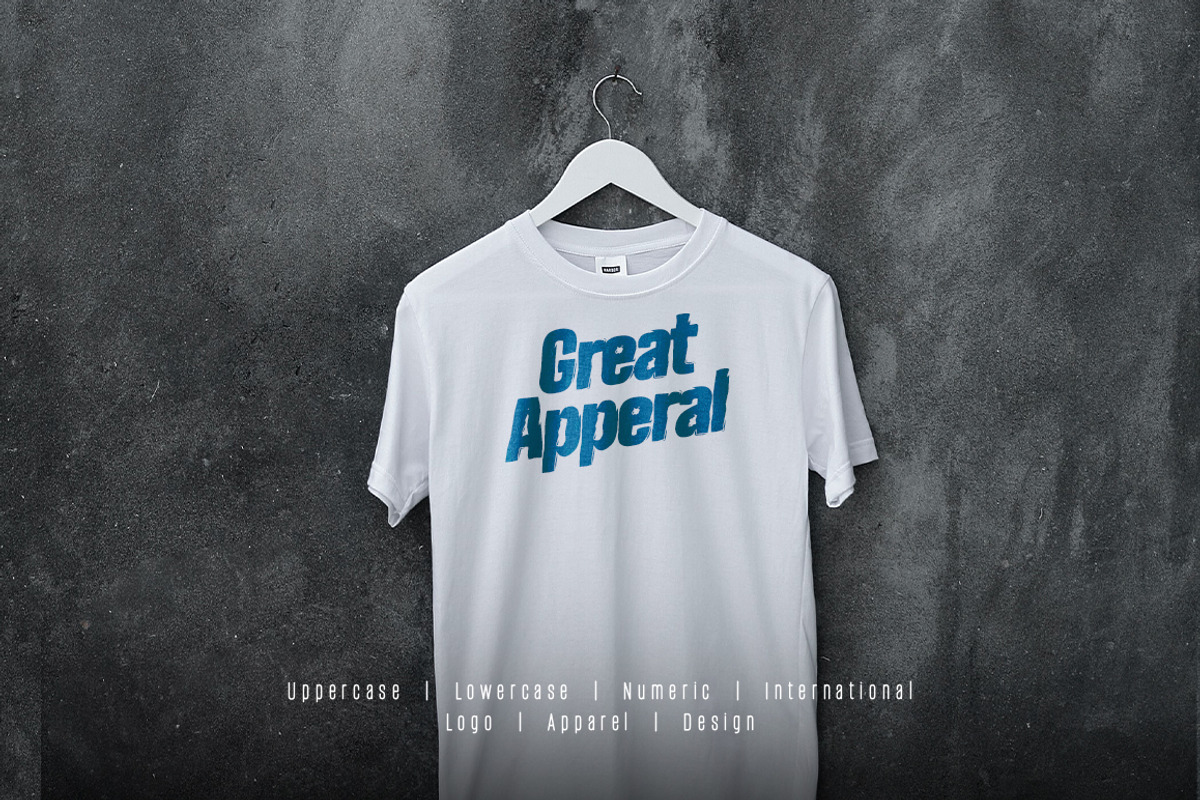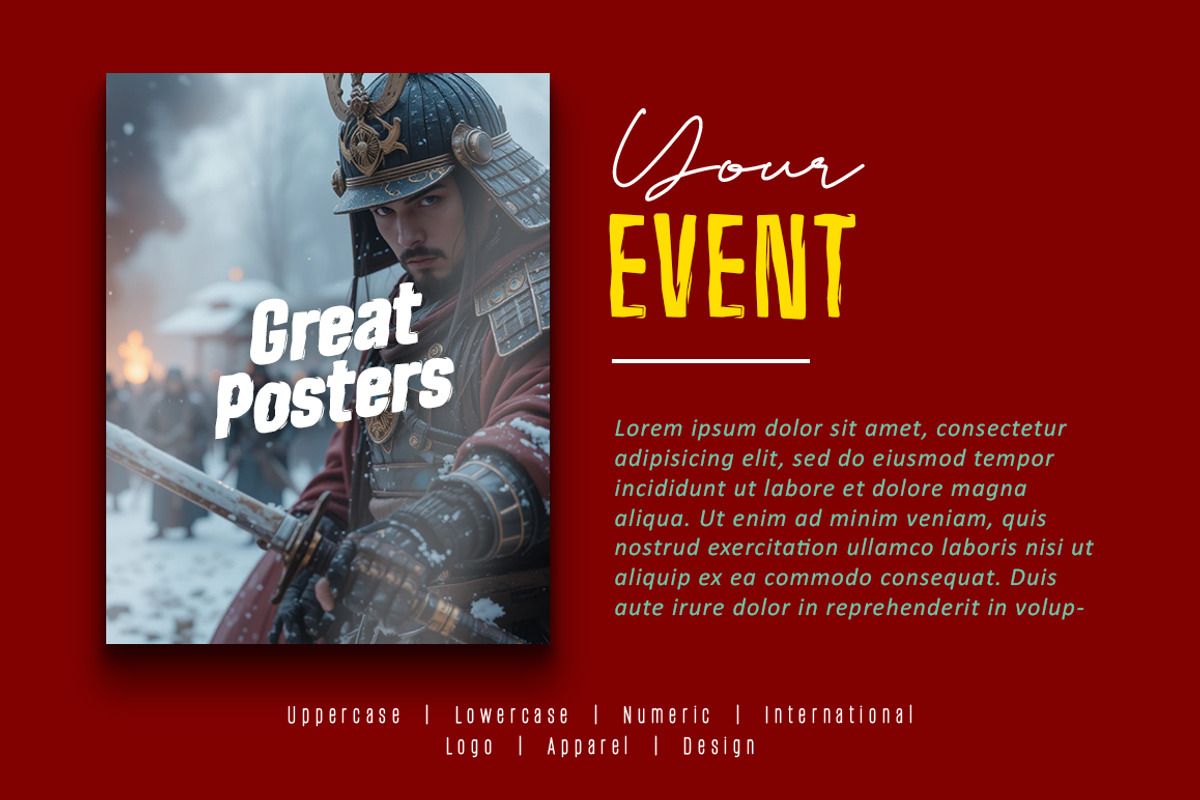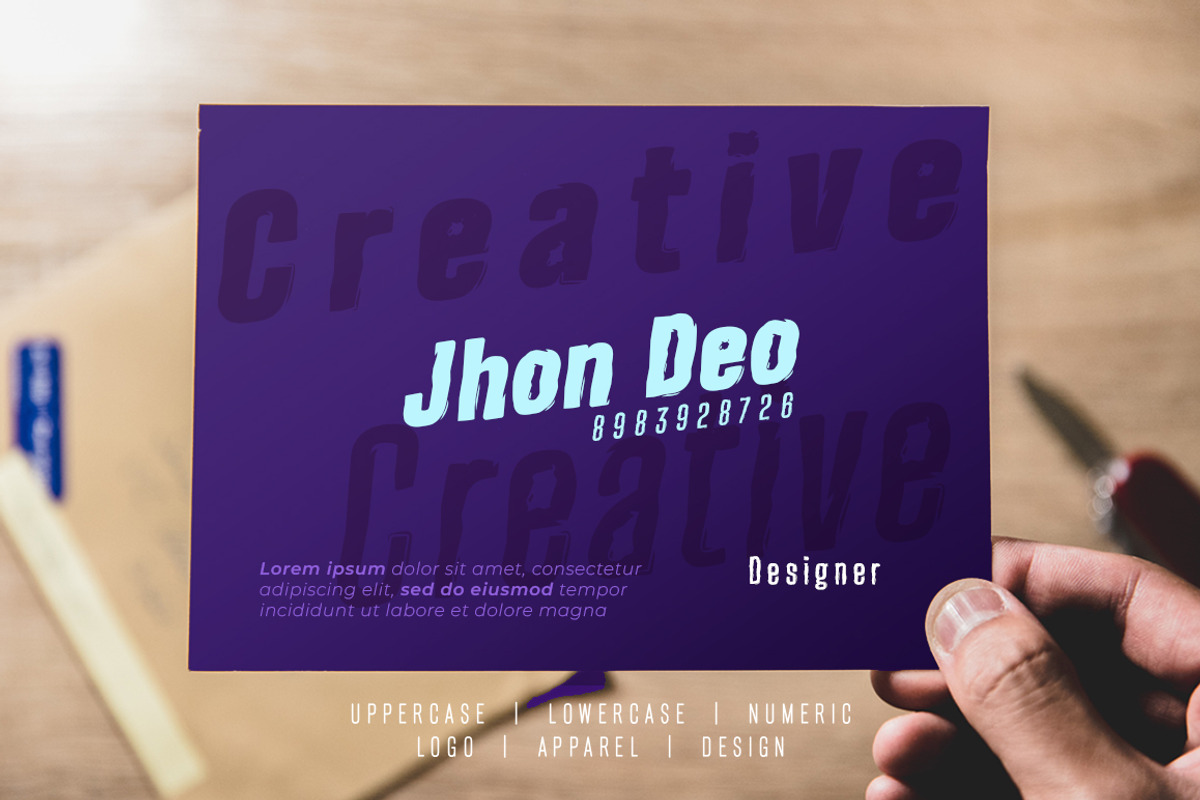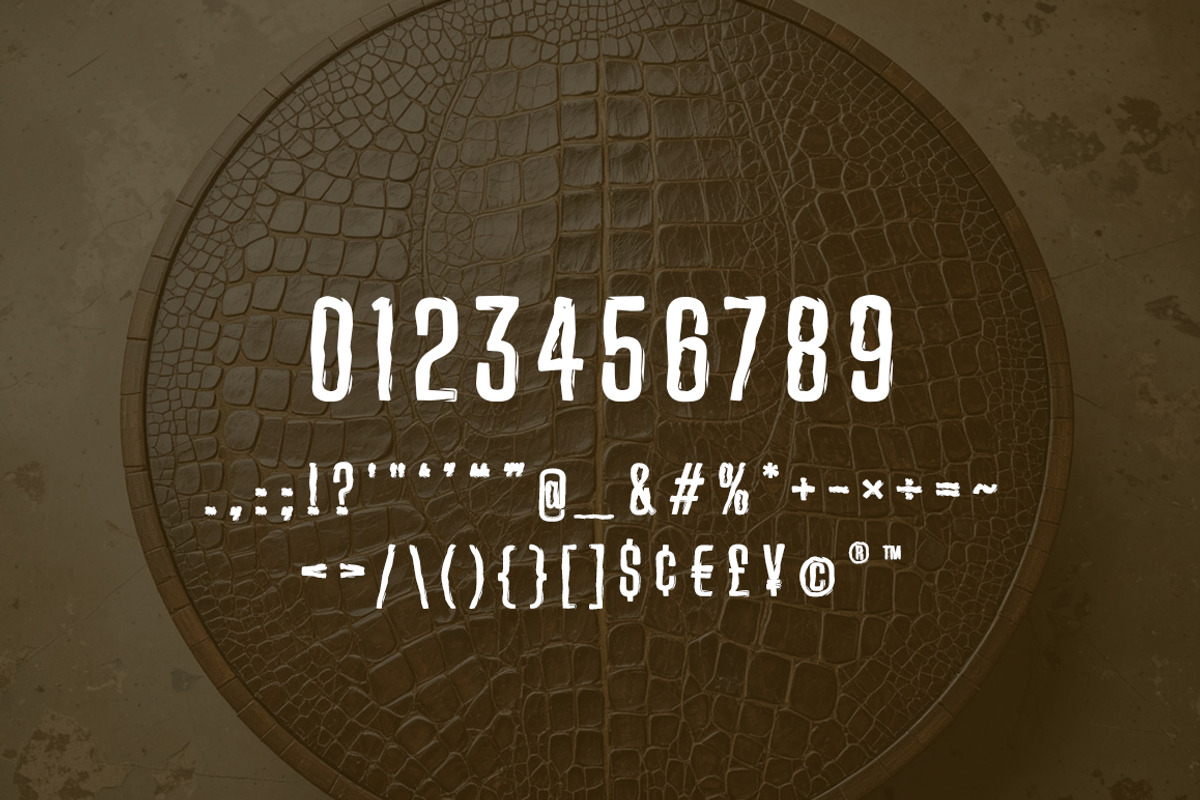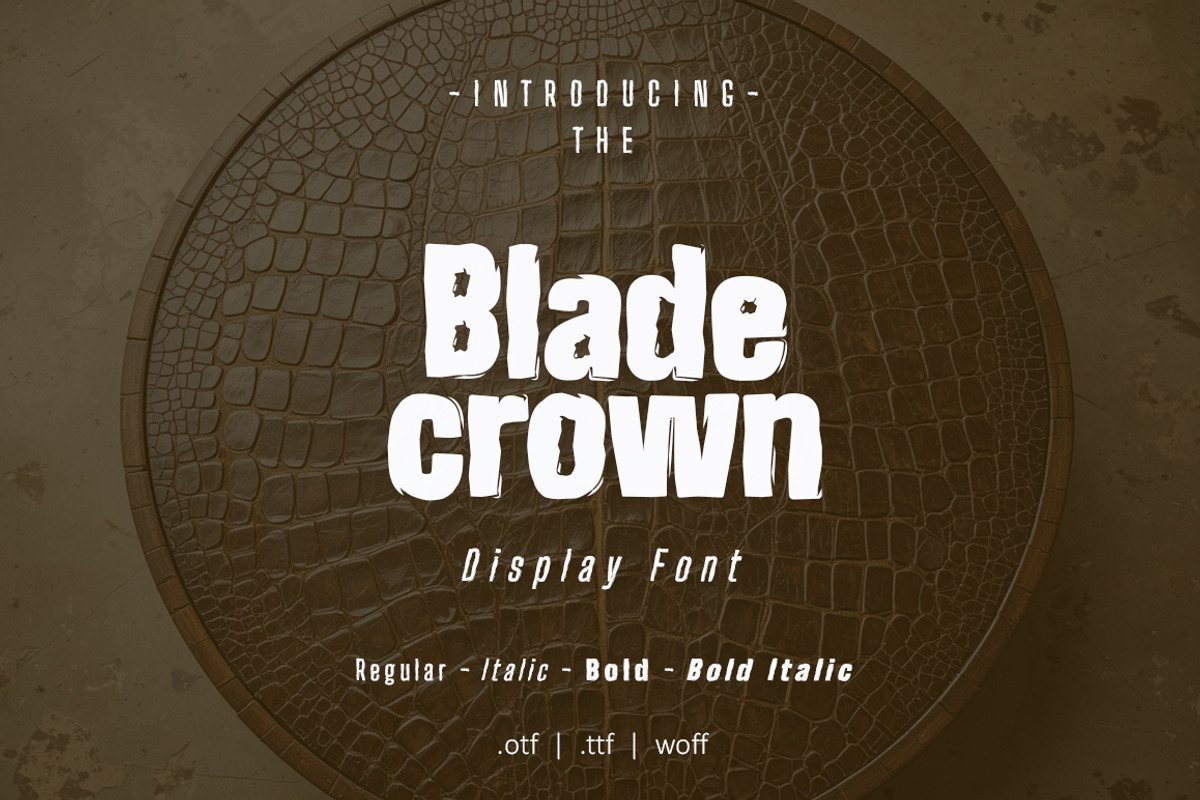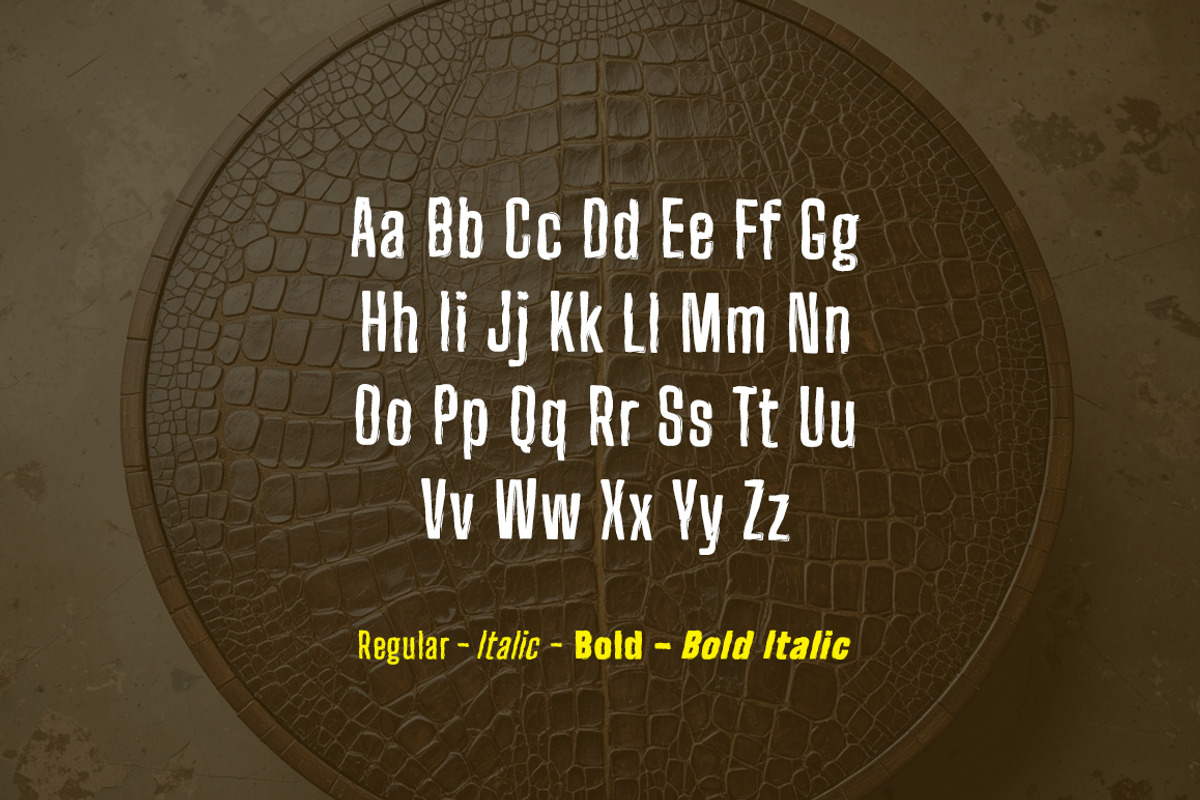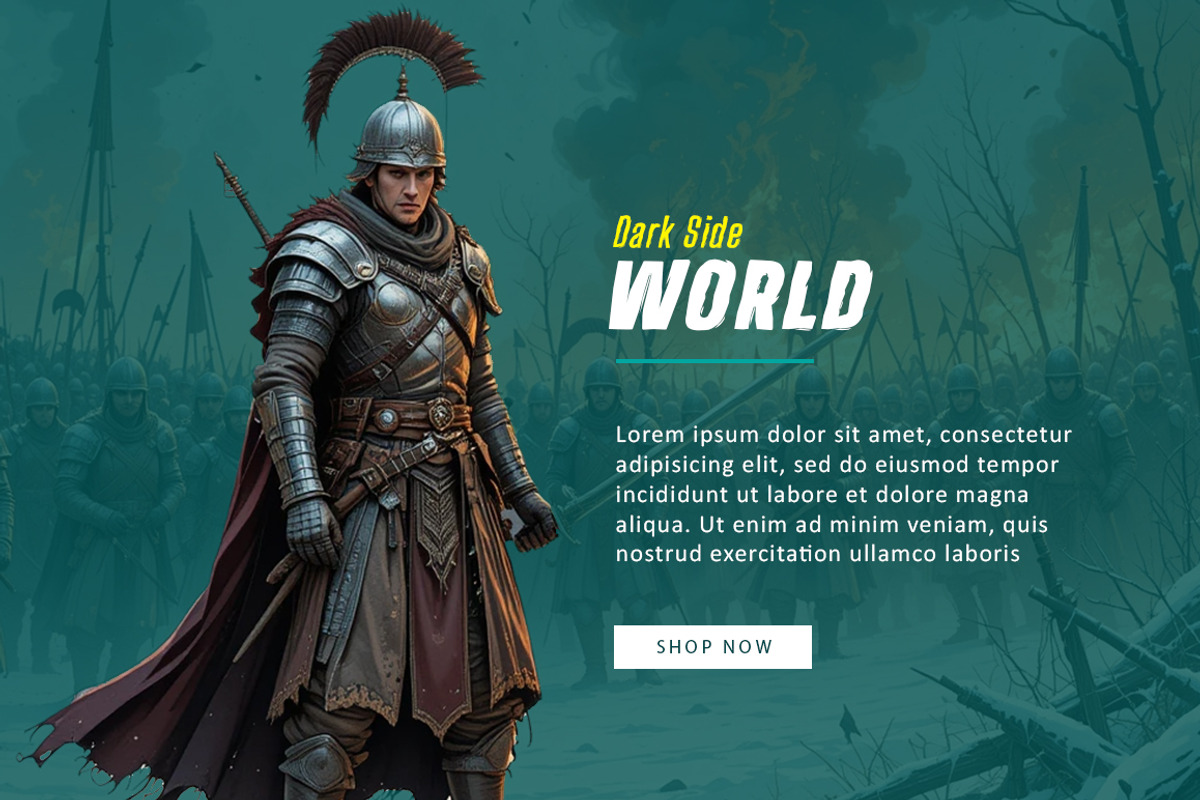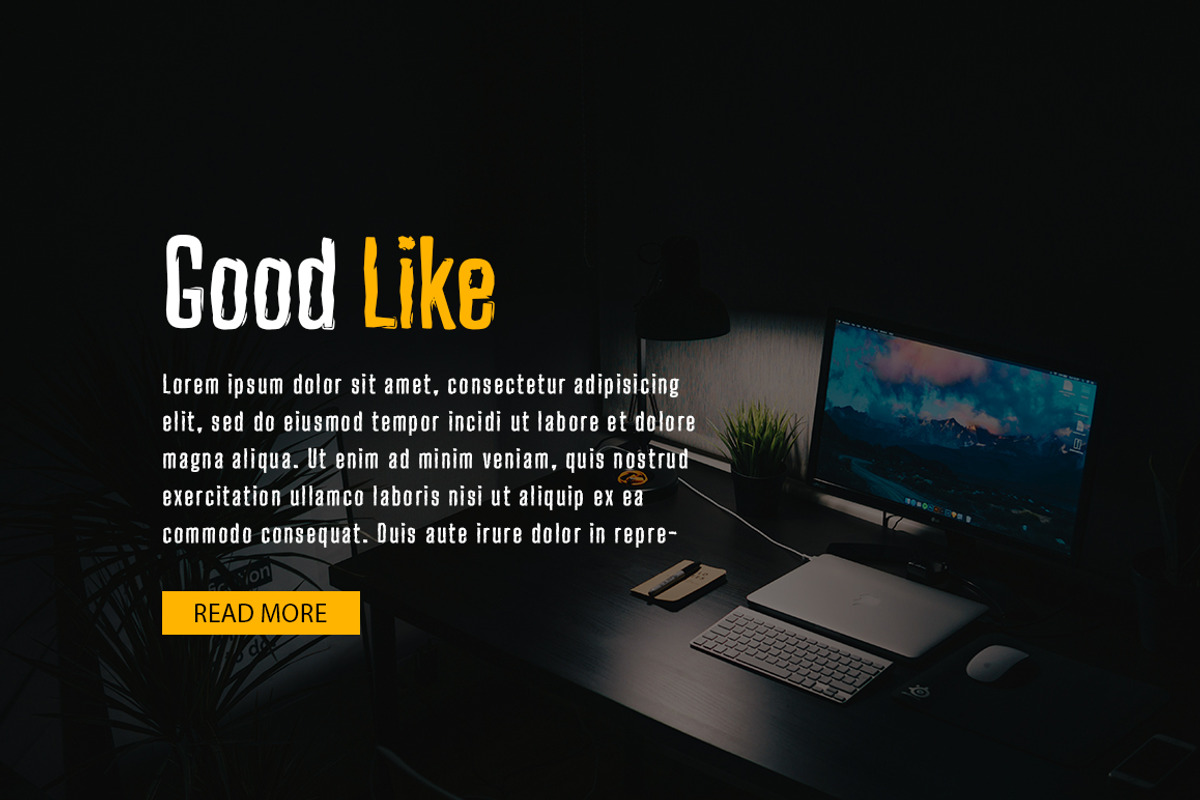
Blade Crown Font Family
Blade Crown Font very suitable for poster, for logo, music cover, clothing, and many many cool design projects. Blade Crown Font is uppercase, lowercas and numeric. Regular, Italic, Bold and Bold Italic